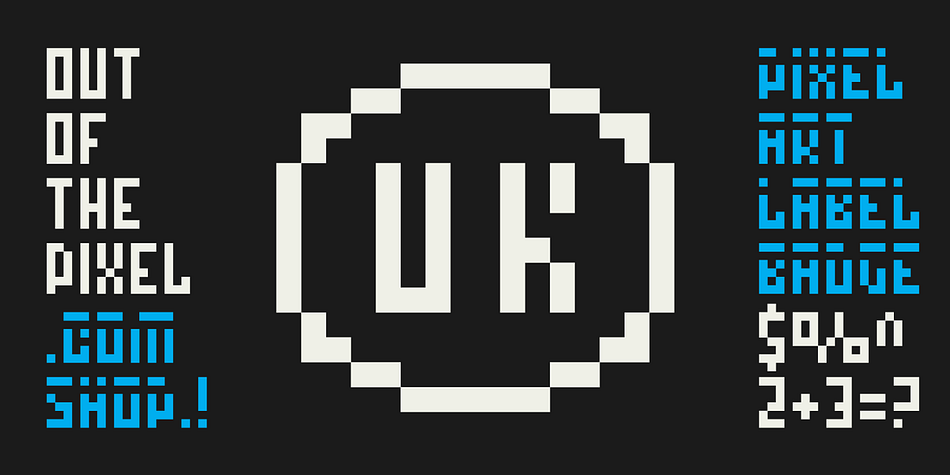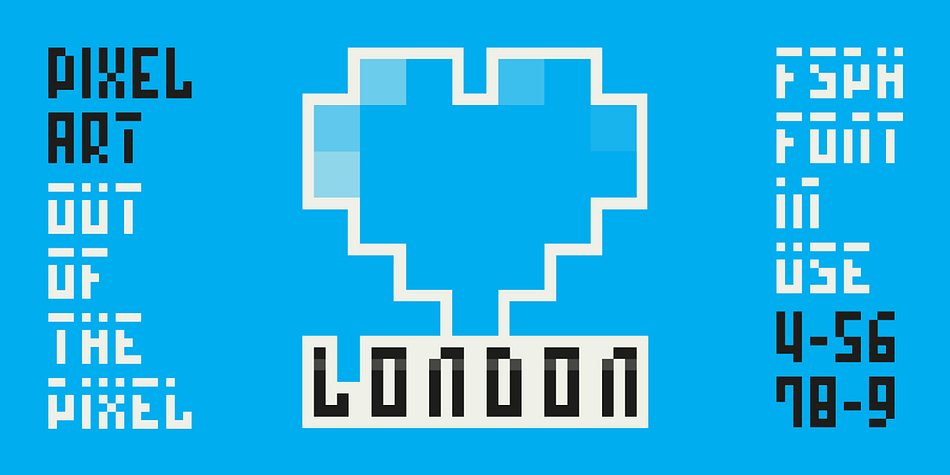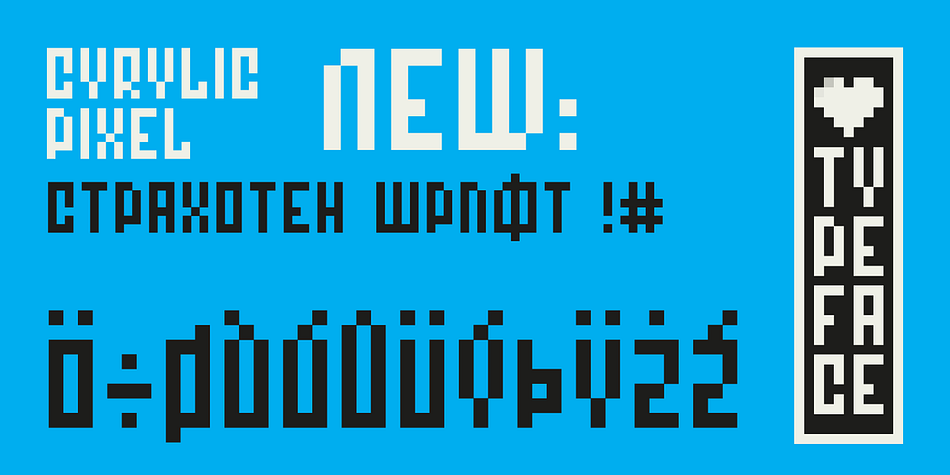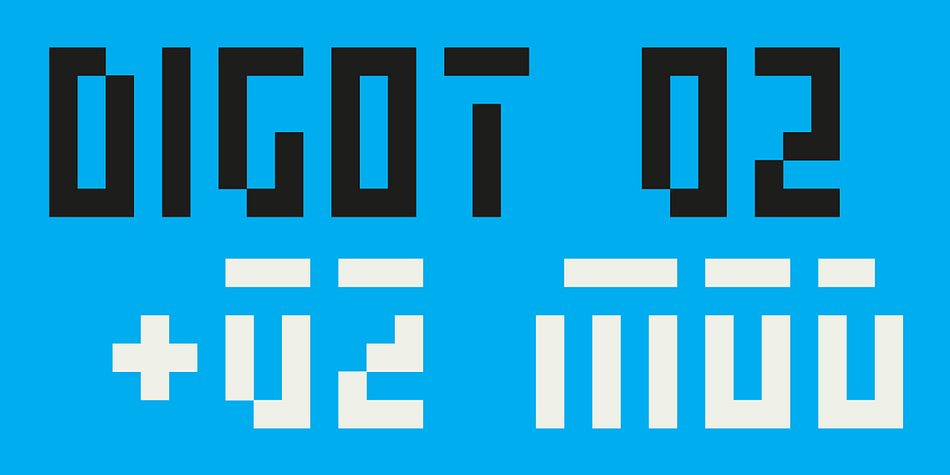
DIGOT 02
Designed by Bartosz Panek, Digot 02 is a pixel font family. This typeface has two styles and was published by Fontsphere.
Digot 02 is a pixel-style, grid-based, display typeface.
This is another version of Digot type. Compared to Digot, it is characterized by a more slender form, the letters are taller and narrower, which makes the font lighter.
The font is characterized by its simplicity, attention to detail, and original form.
You can use it in a wide variety of projects. It gives many possibilities for creating graphics.